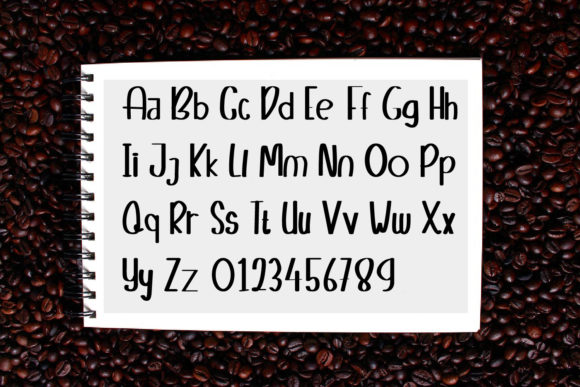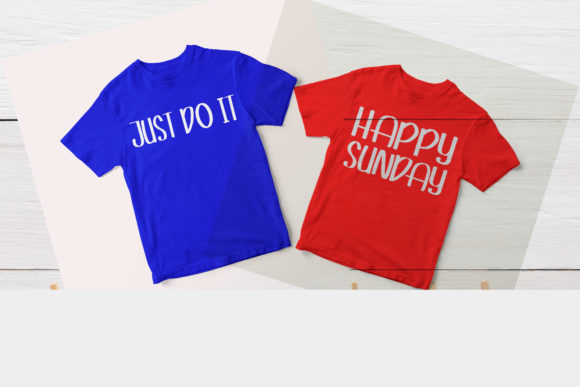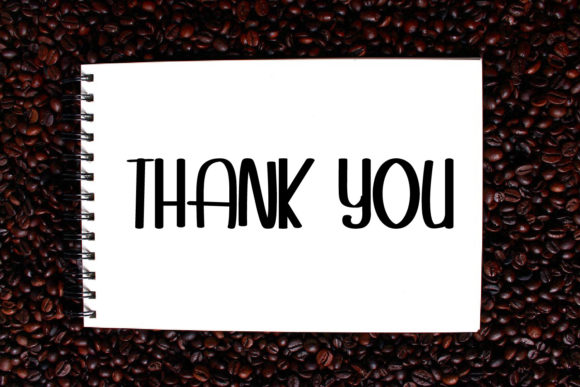
About Booklet Font
Booklet is a charming and playful handwritten font that adds a touch of whimsy to your designs. With its cute and friendly appearance, it brings a lighthearted and approachable vibe to any project.
Whether you’re creating logos, developing a brand identity, designing posters, or working on crafty DIY projects, Booklet is a great choice. Its quirky and unique letterforms give your designs a distinct personality and make them stand out.
The playful nature of Booklet makes it suitable for a wide range of applications. Use it in children’s book illustrations, playful packaging designs, or for adding a touch of fun to your social media graphics. Its hand-drawn style gives your designs an authentic and personalized feel, enhancing their appeal.
Booklet’s versatility allows you to experiment with different styles and layouts. Combine it with vibrant colors and playful illustrations to create eye-catching posters and advertisements. Use it for branding projects to convey a friendly and approachable image for your business. You can also incorporate Booklet into your DIY crafts, such as greeting cards, scrapbooking, or personalized gifts.
In summary, Booklet is a cute and friendly handwritten font that adds a playful touch to your designs. Its versatility makes it suitable for logos, branding, posters, and crafty DIY projects. Let the whimsical charm of Booklet bring a smile to your audience and make your designs memorable.